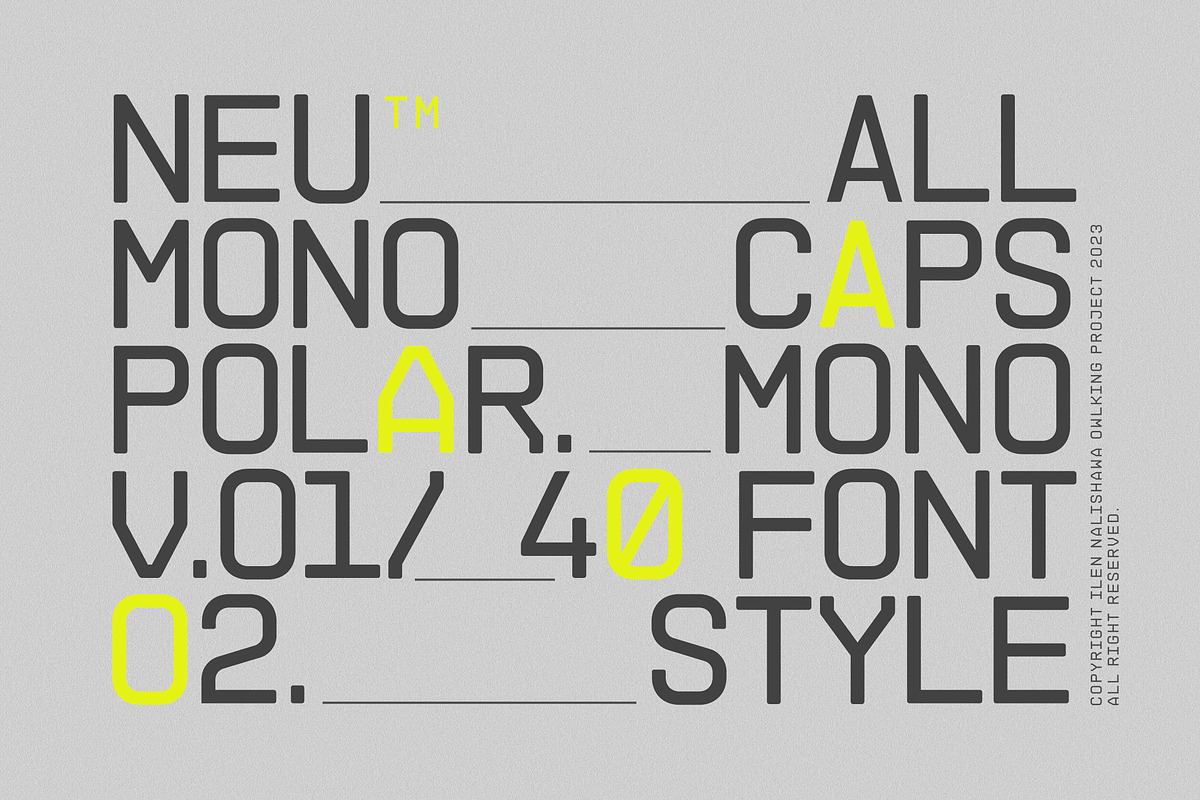
NEUMONOPOLAR Font Free Download is a modern, geometric sans-serif typeface designed with clean, bold lines and a contemporary feel. Featuring sharp edges and balanced proportions, this font is ideal for high-impact branding, headlines, logos, and other design projects that require clarity and style.
Its minimalistic design gives it a sleek and professional appearance, making it perfect for modern websites, tech brands, editorial layouts, and creative projects. Whether you're designing for a digital platform or creating print materials, NEUMONOPOLAR delivers a modern, stylish edge to your typography.